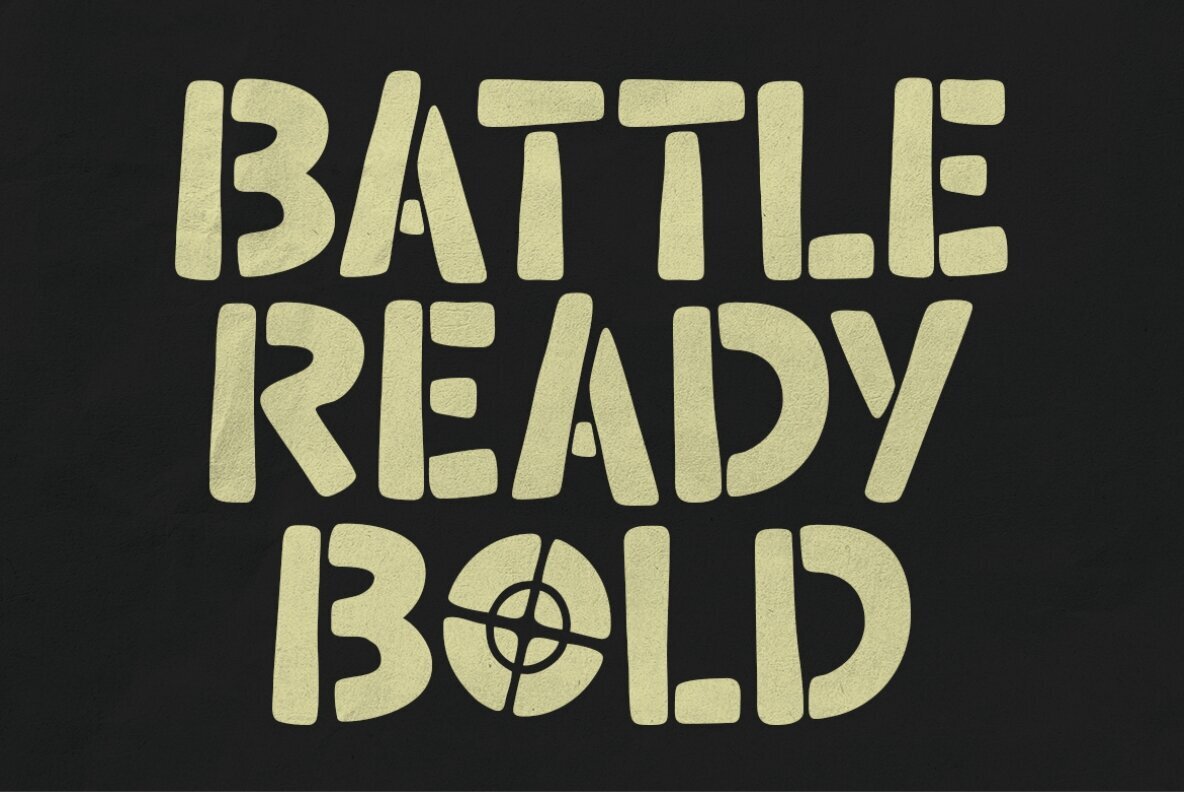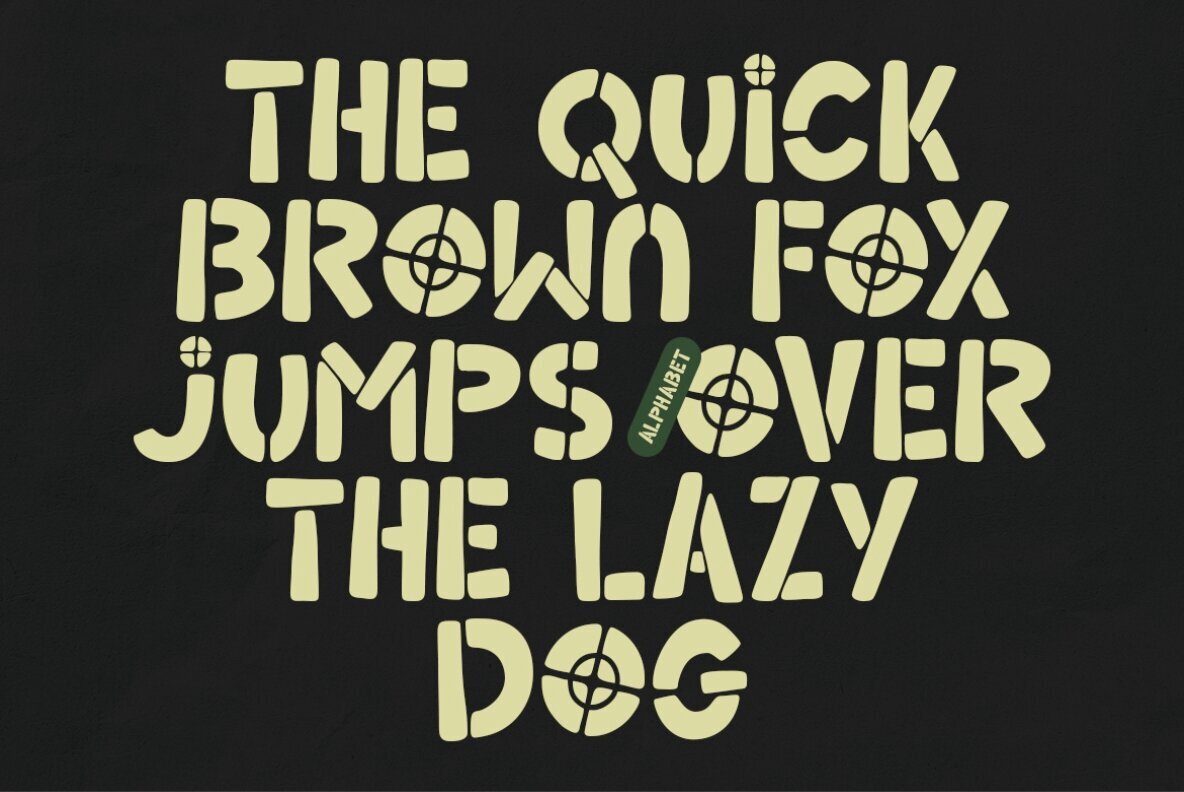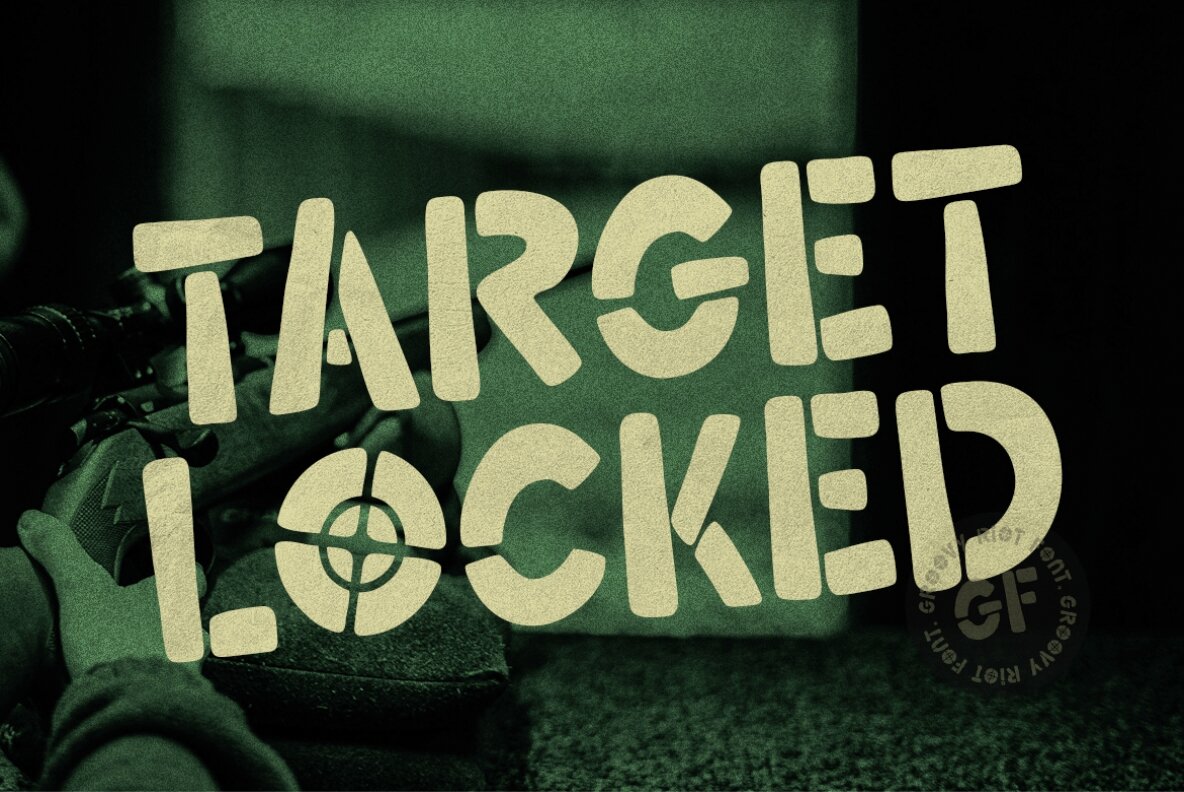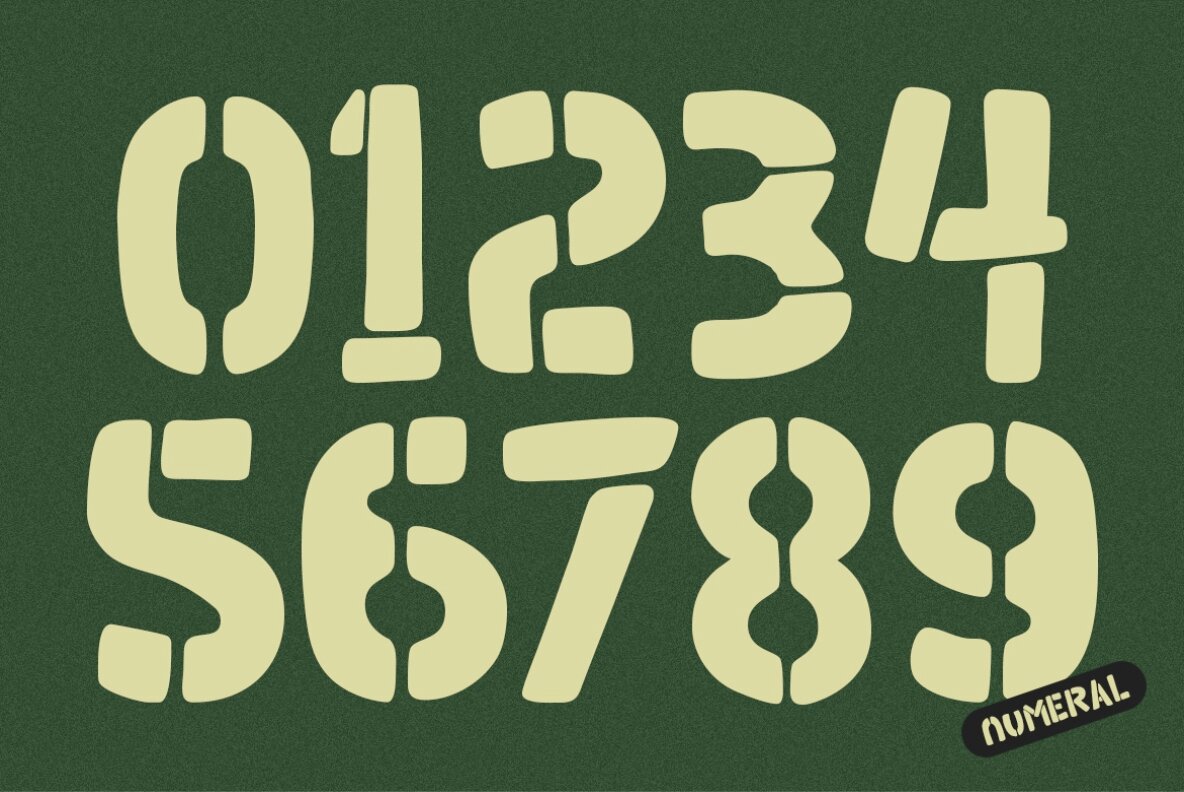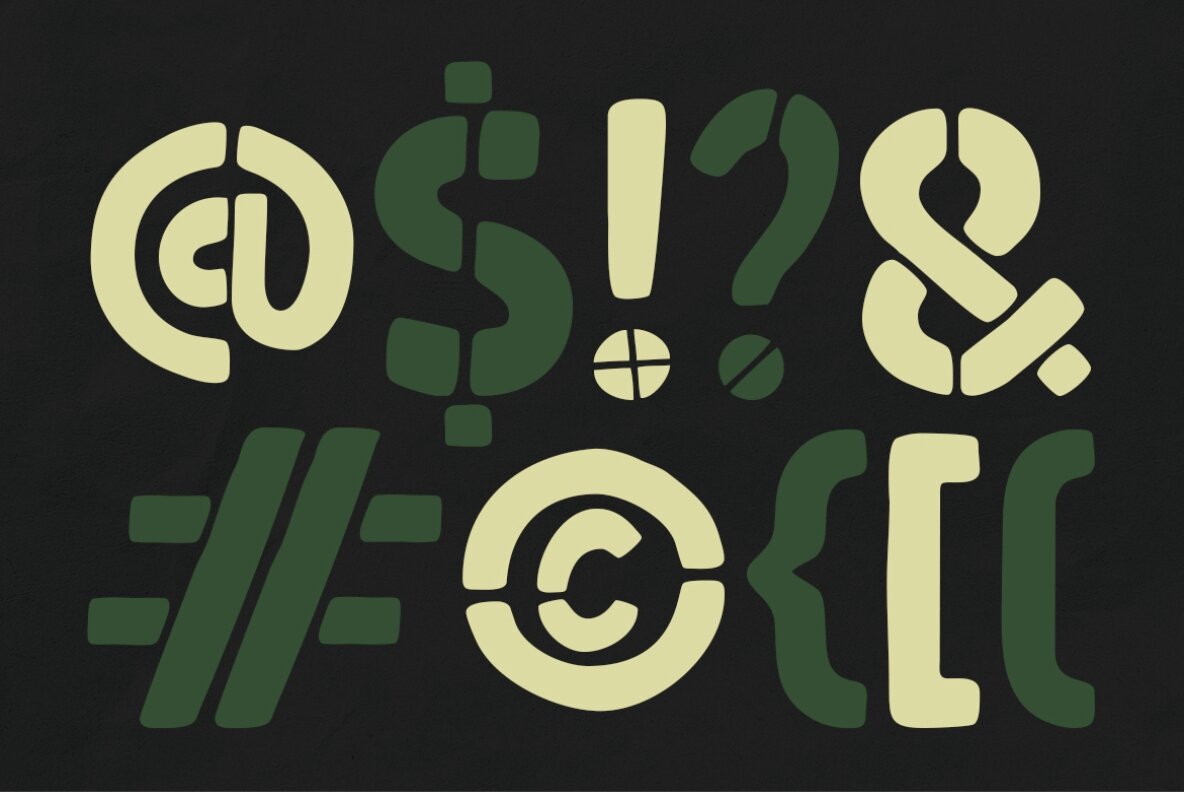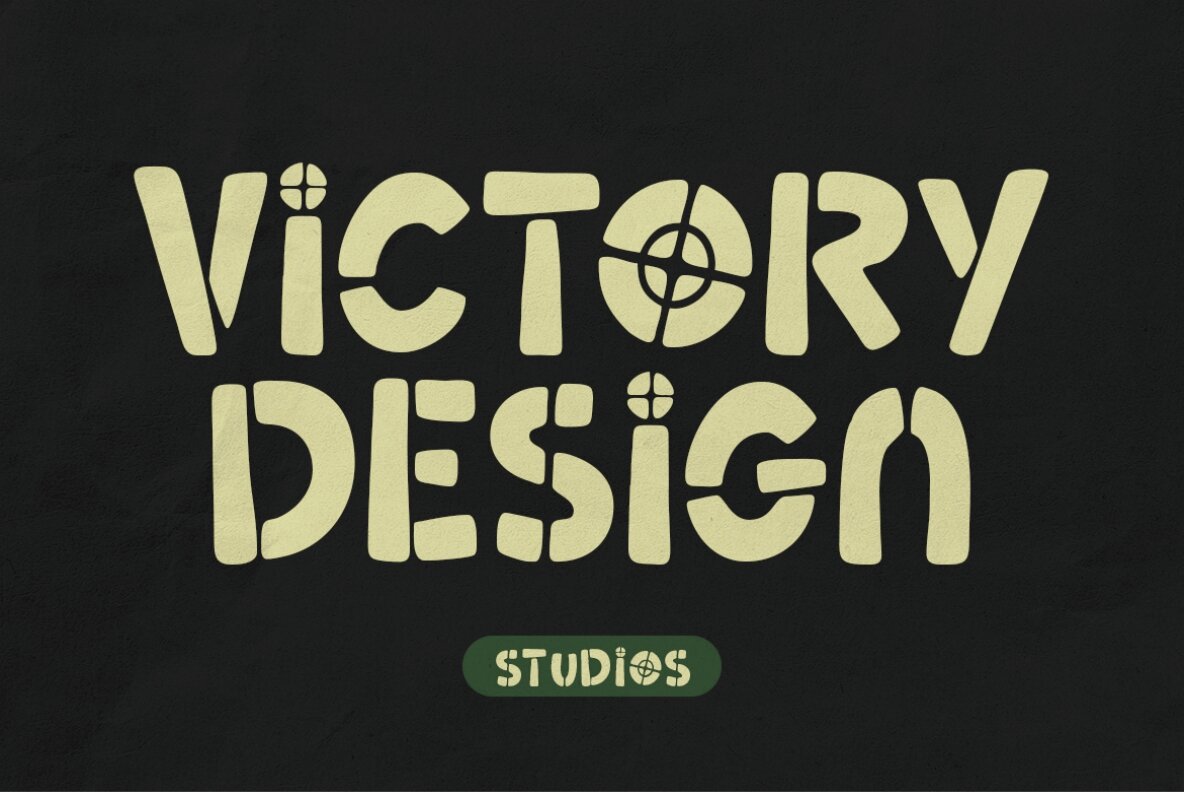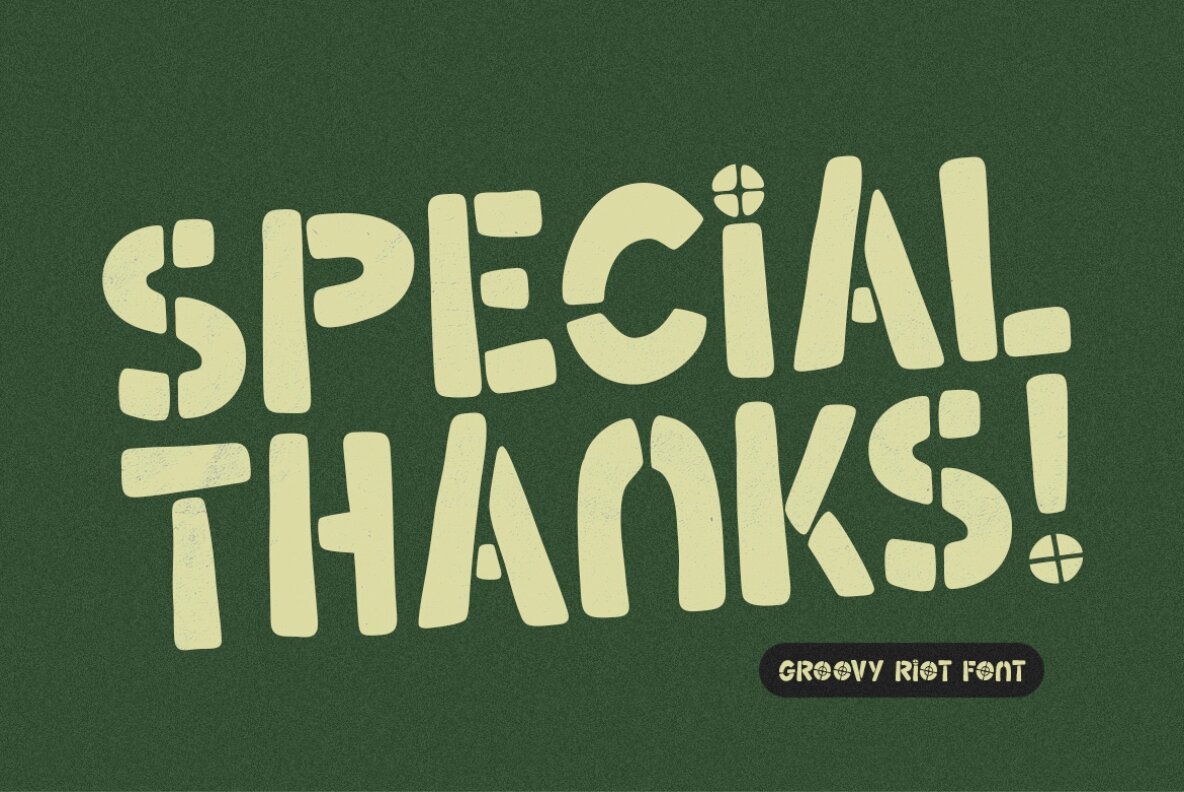
Groovy Riot Font
Groovy Riot Regular
Groovy Riot is a unique and fun stencil-style font that has a hand-drawn feel to it. With its playful and unconventional design, it is perfect for projects that require a bold and eye-catching statement. The stenciled letters give the font a trendy and retro vibe, making it a great option for posters, flyers, and other designs with a vintage or hipster aesthetic.